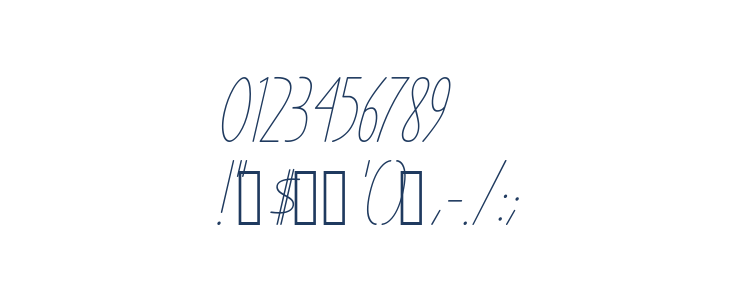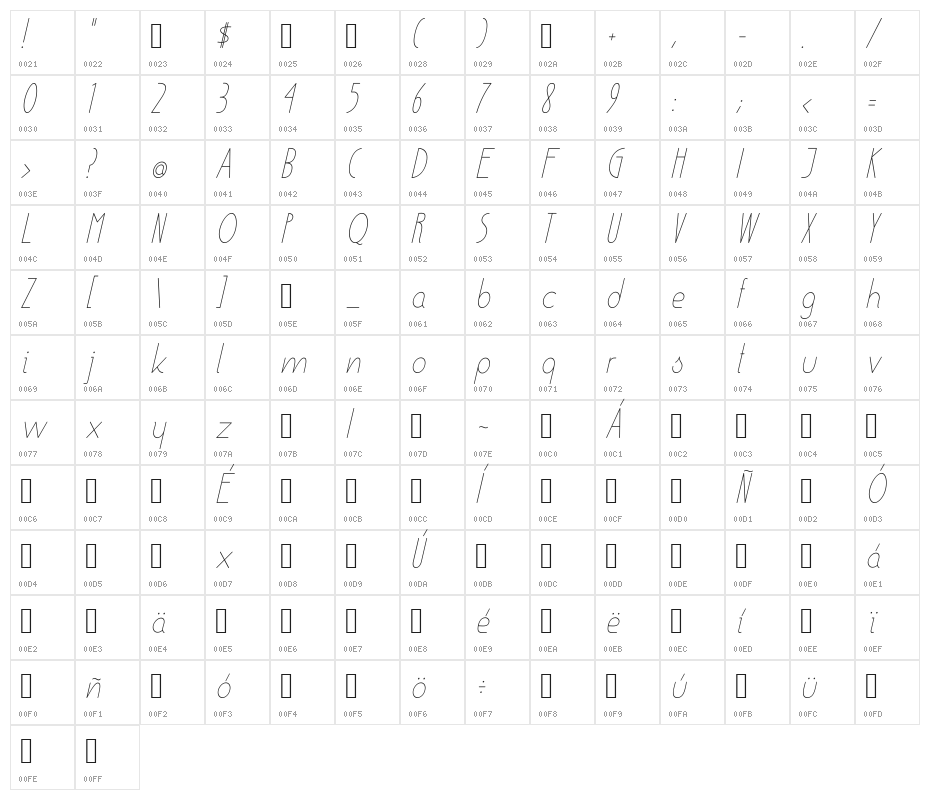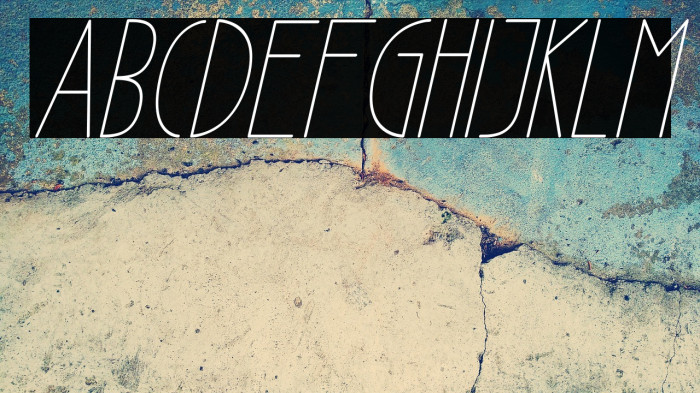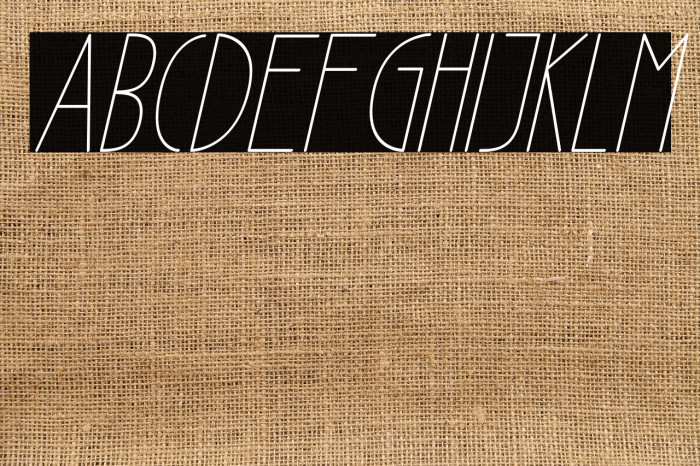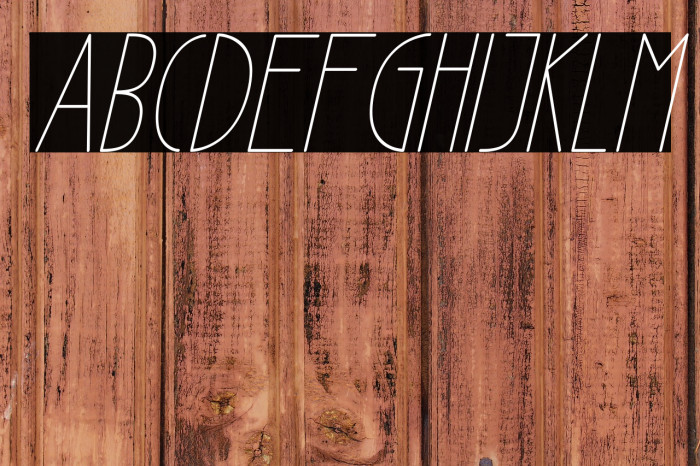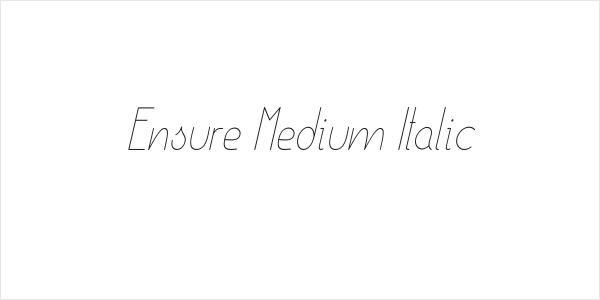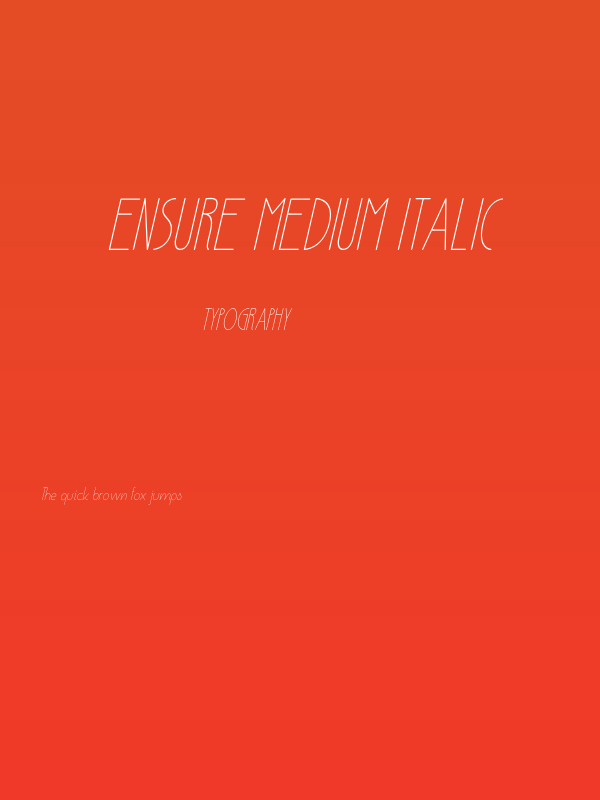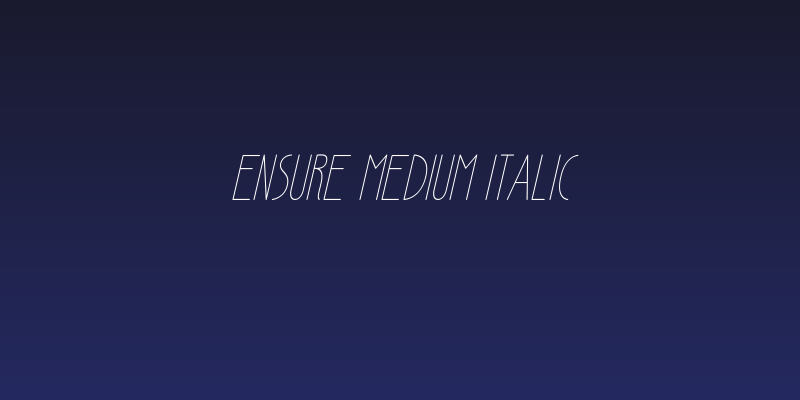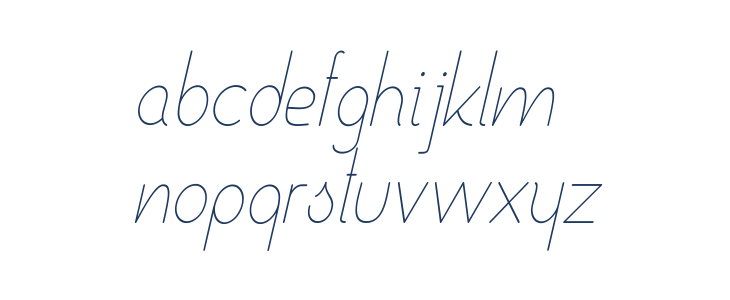
Ensure Medium Italic Font
Ensure Medium Italic Description
This font features a sleek and elongated design with a distinct italic slant, giving it a dynamic and elegant appearance. The characters are thin and tall, with a consistent stroke width that conveys a sense of modernity and sophistication. The uppercase letters are particularly elongated, while the lowercase letters maintain a balanced proportion. The numerals are clear and legible, matching the overall style of the alphabet. Special characters are included, maintaining the same thin and refined aesthetic. This font is suitable for projects that require a touch of elegance and modernity.